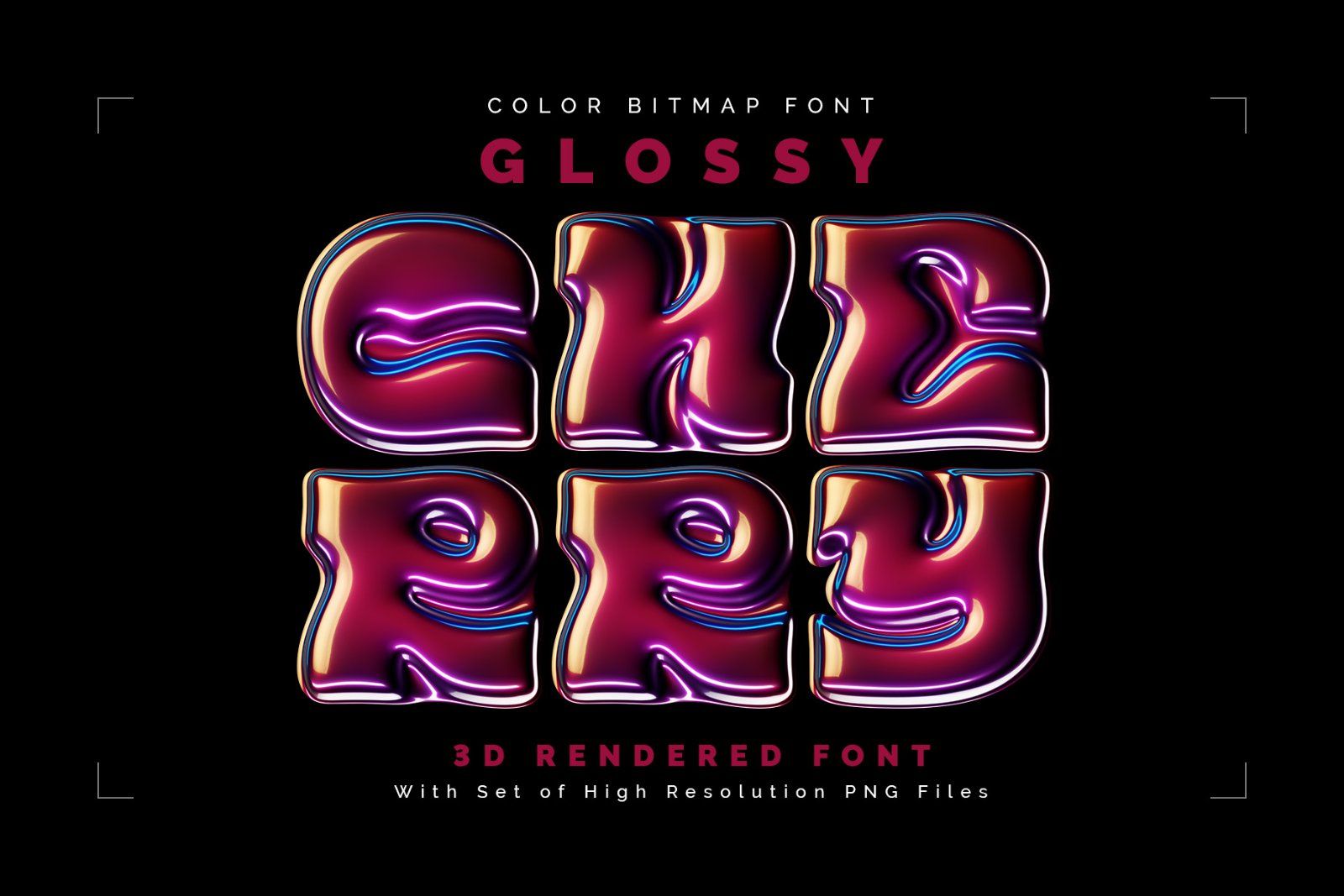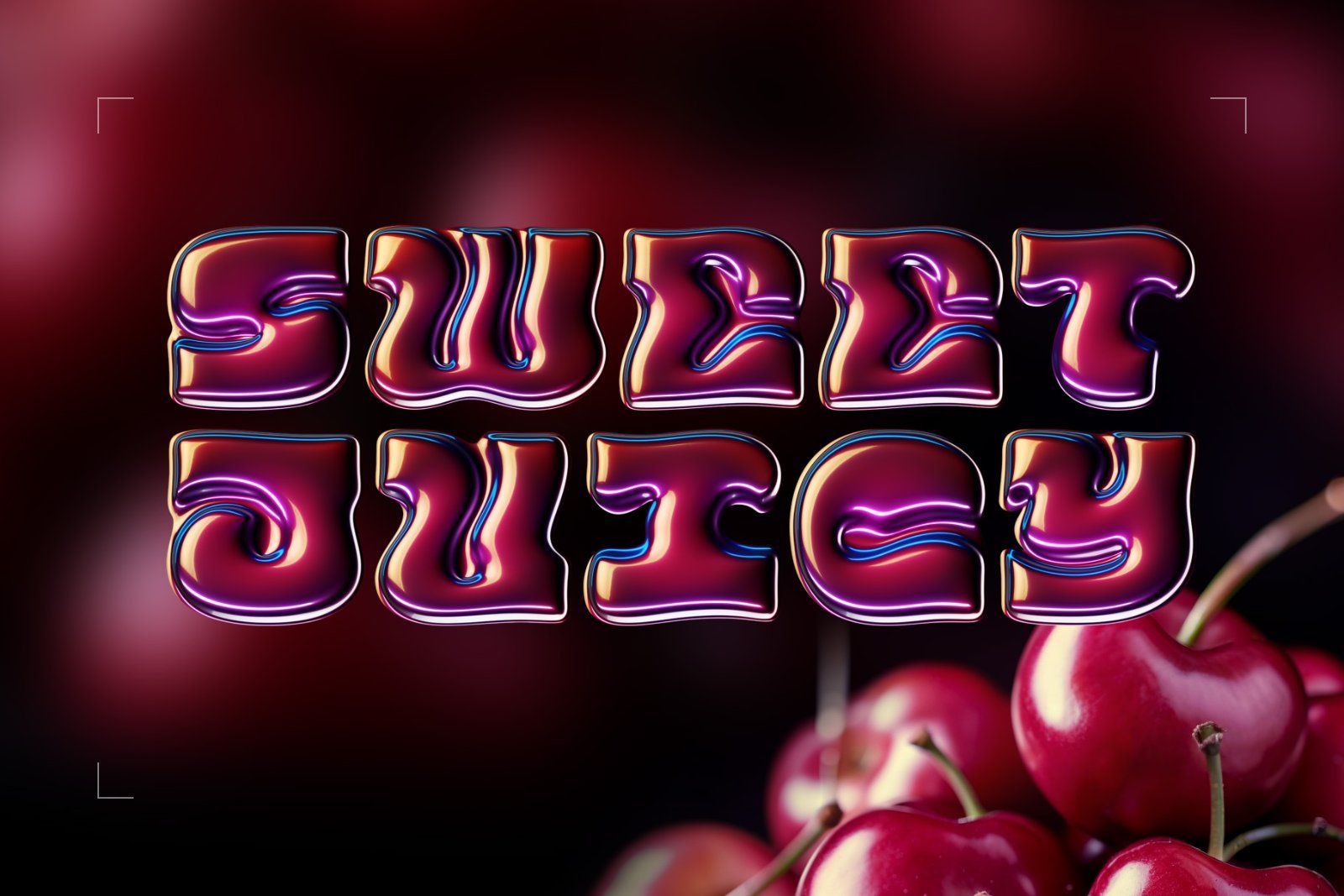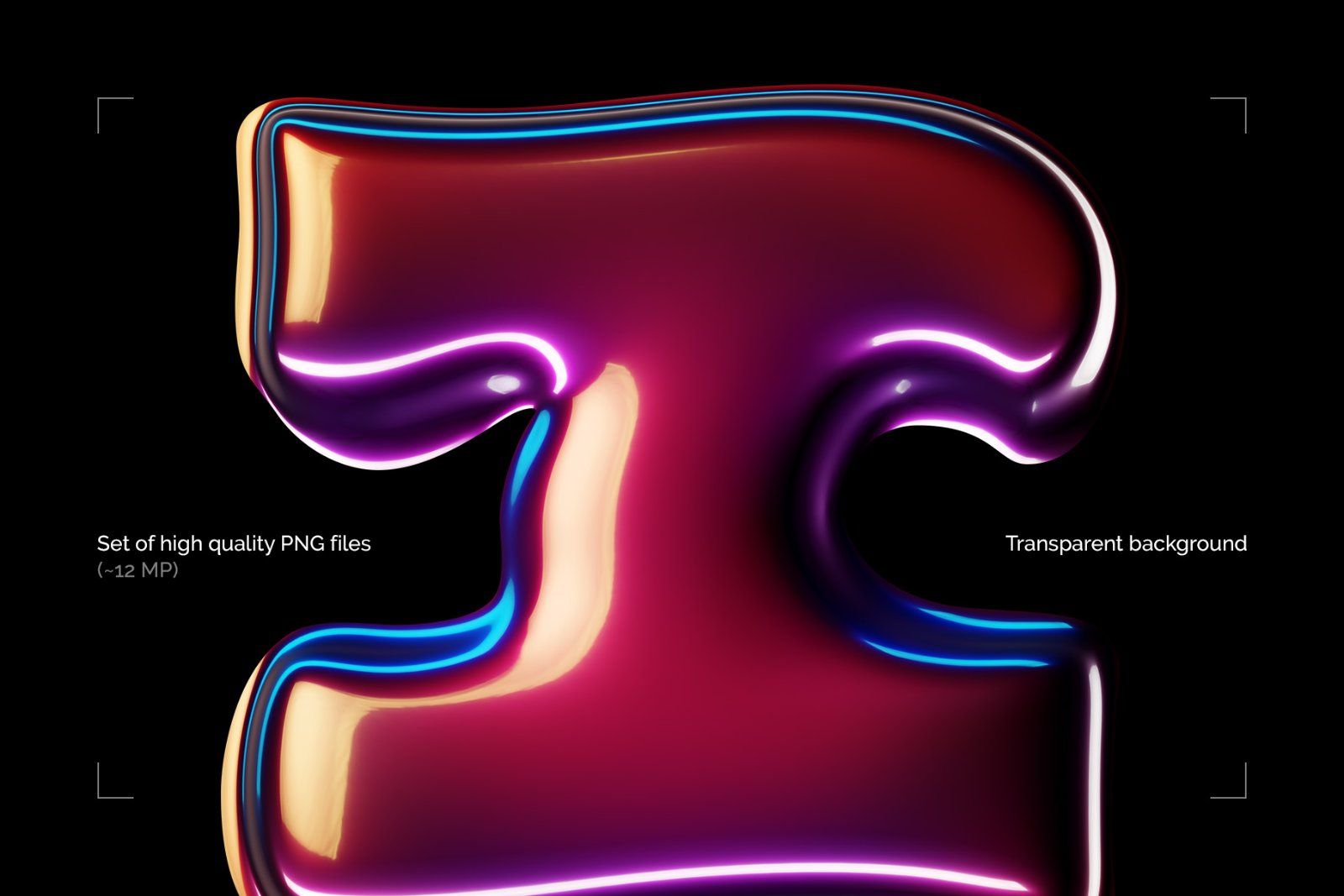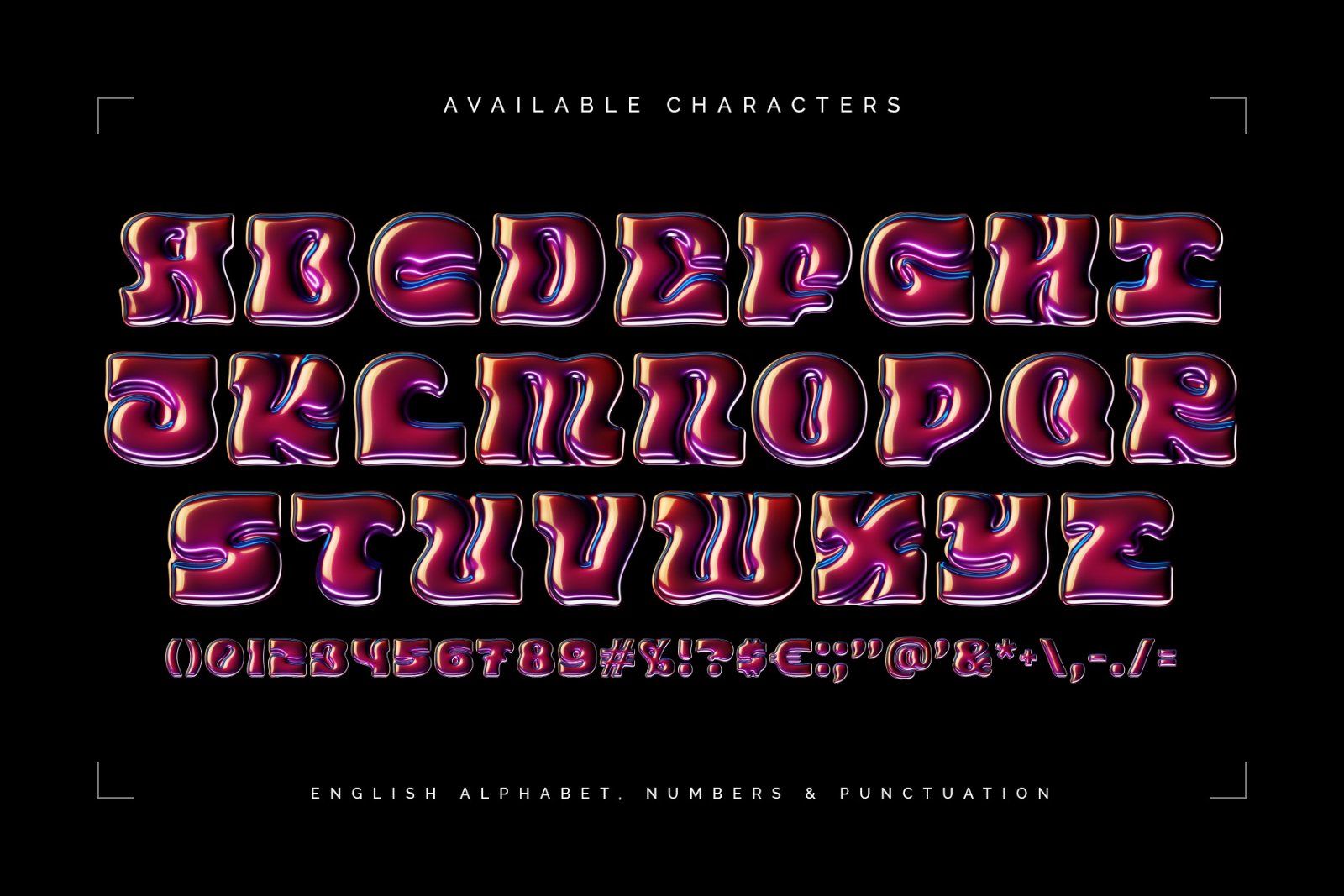
Hello! Presenting a fancy creative font set – Glossy Cherry. It's a 3d rendered high quality typeface with smooth colorful surface that looks like a cherry berries. First of all it's a color bitmap OpenType-SVG font that can be used as a usual OTF font. Also a set of full resolution PNG files with transparent background is included (Average resolution is 12 megapixels).
Consider that only English language and basic punctuation is supported, please check out the screenshot with all available characters.